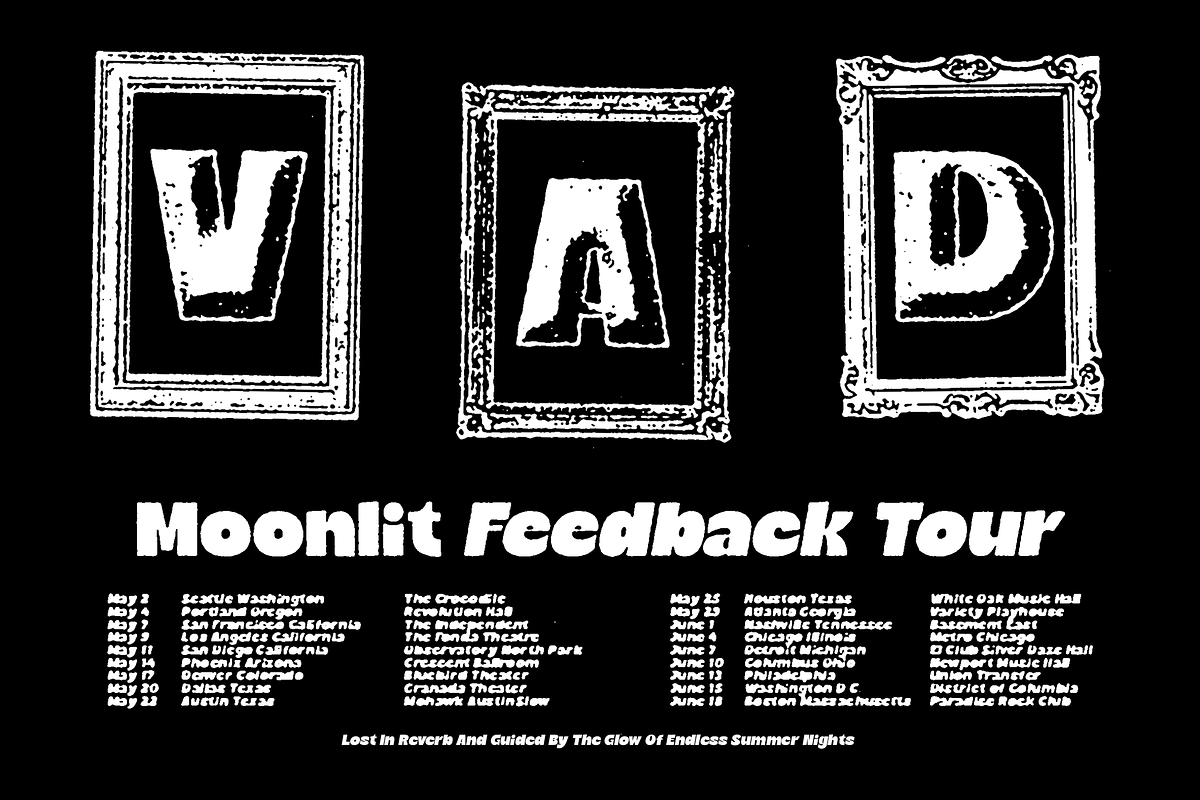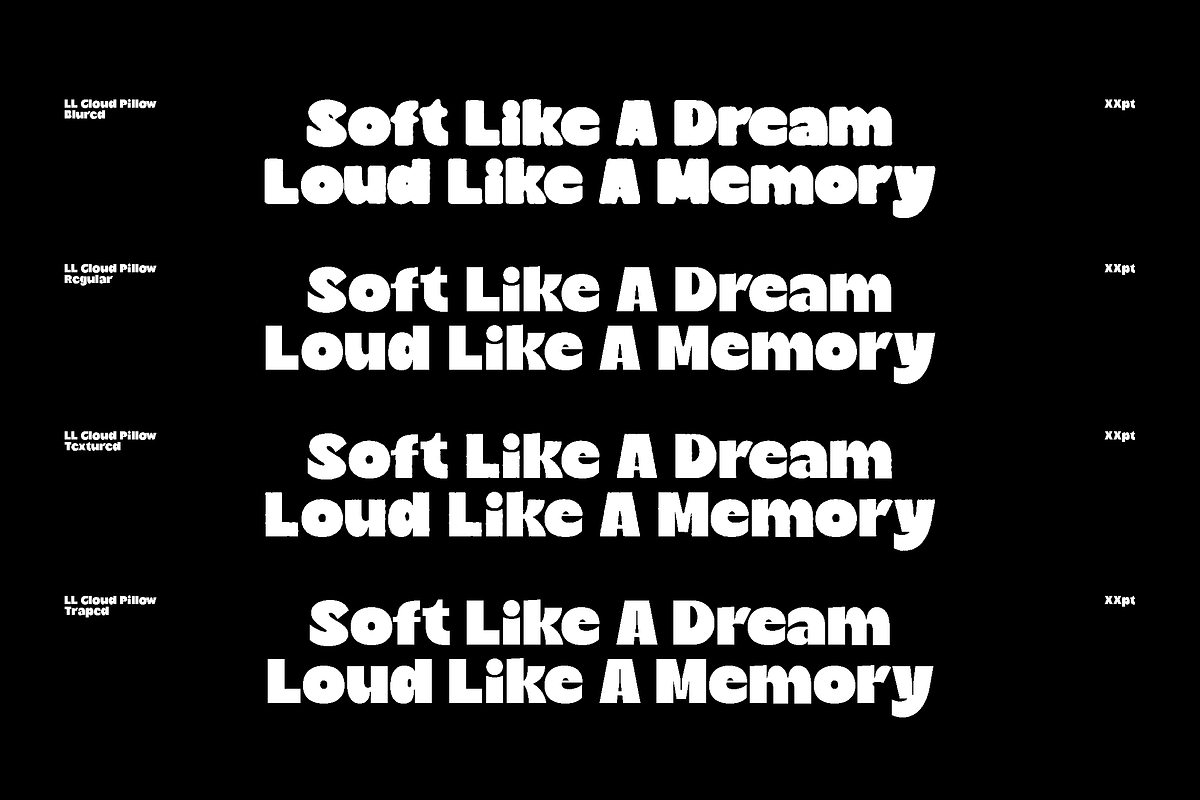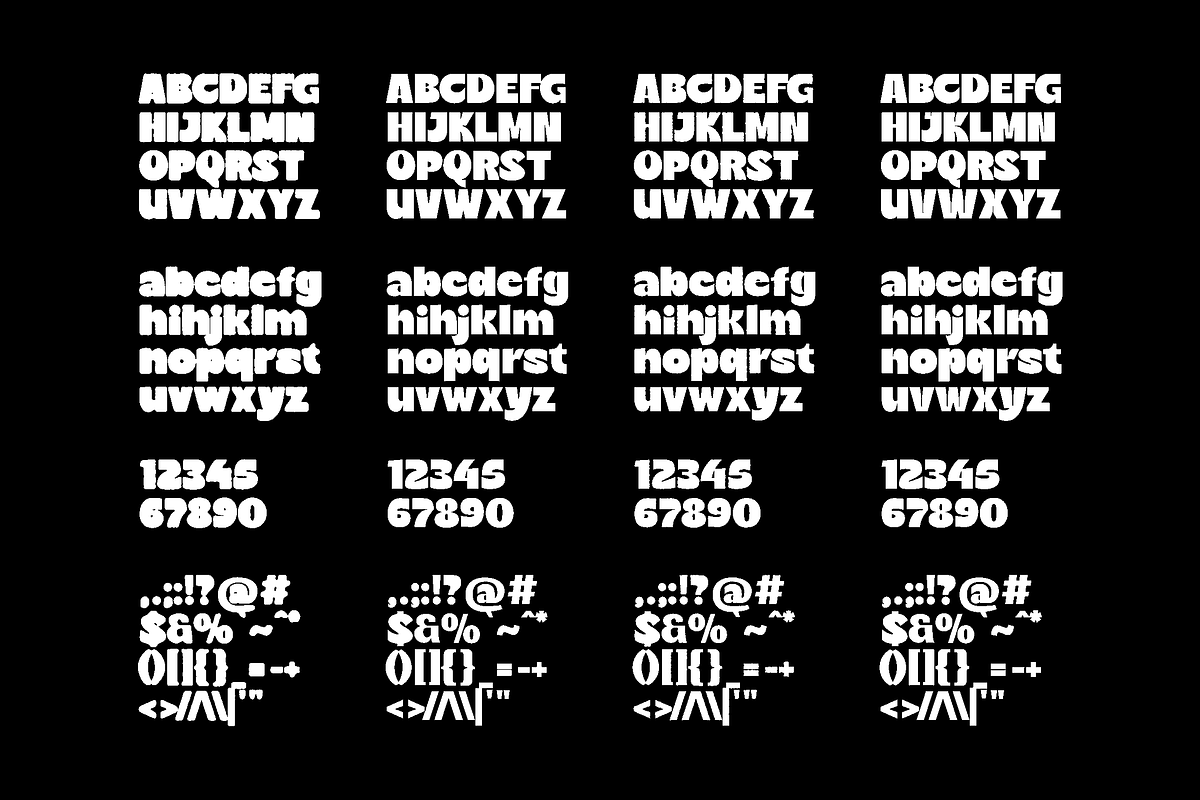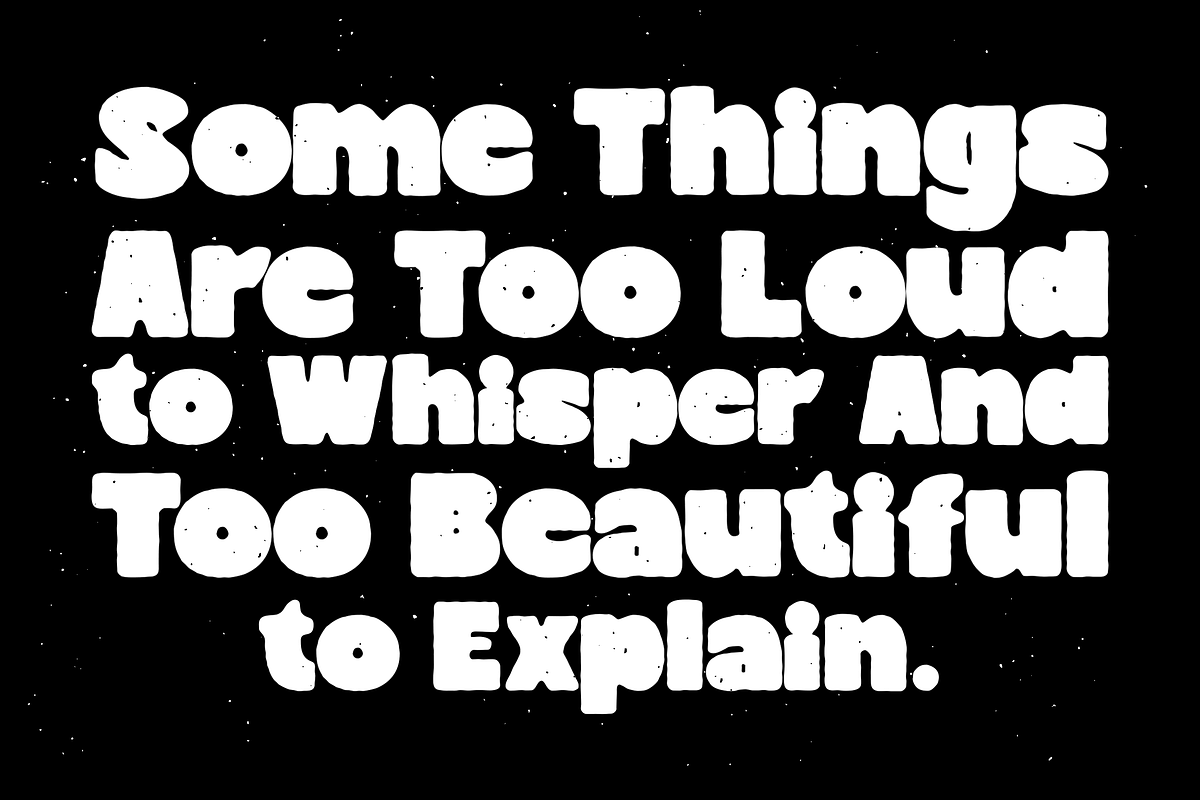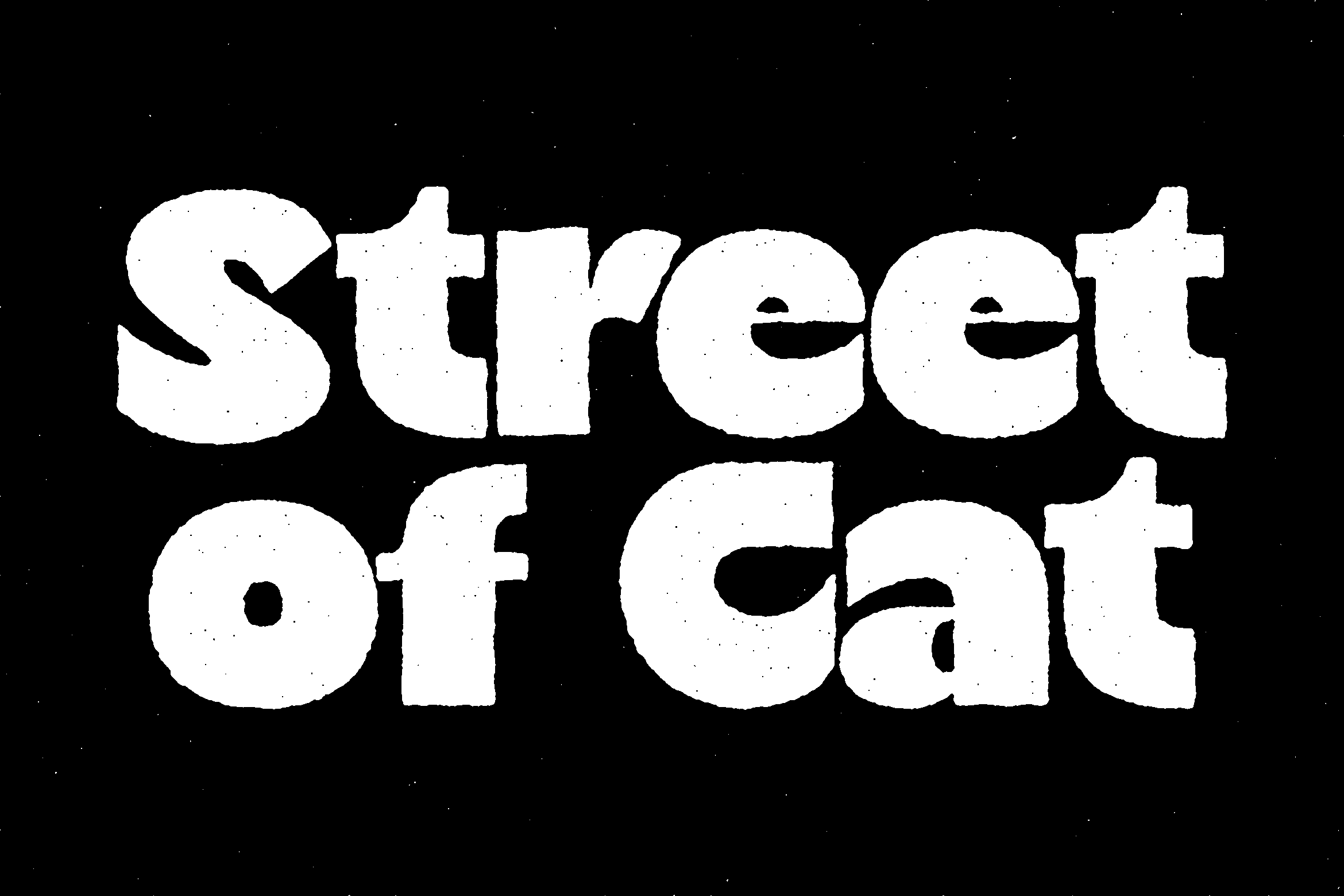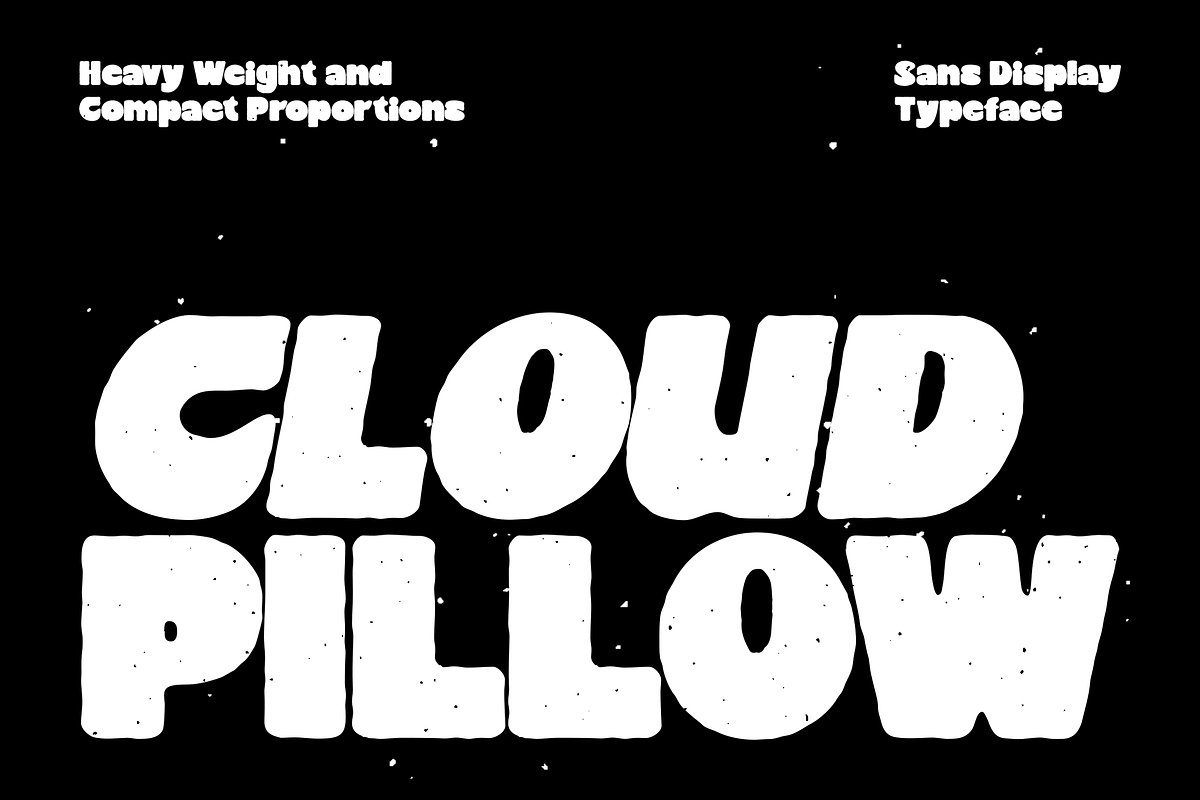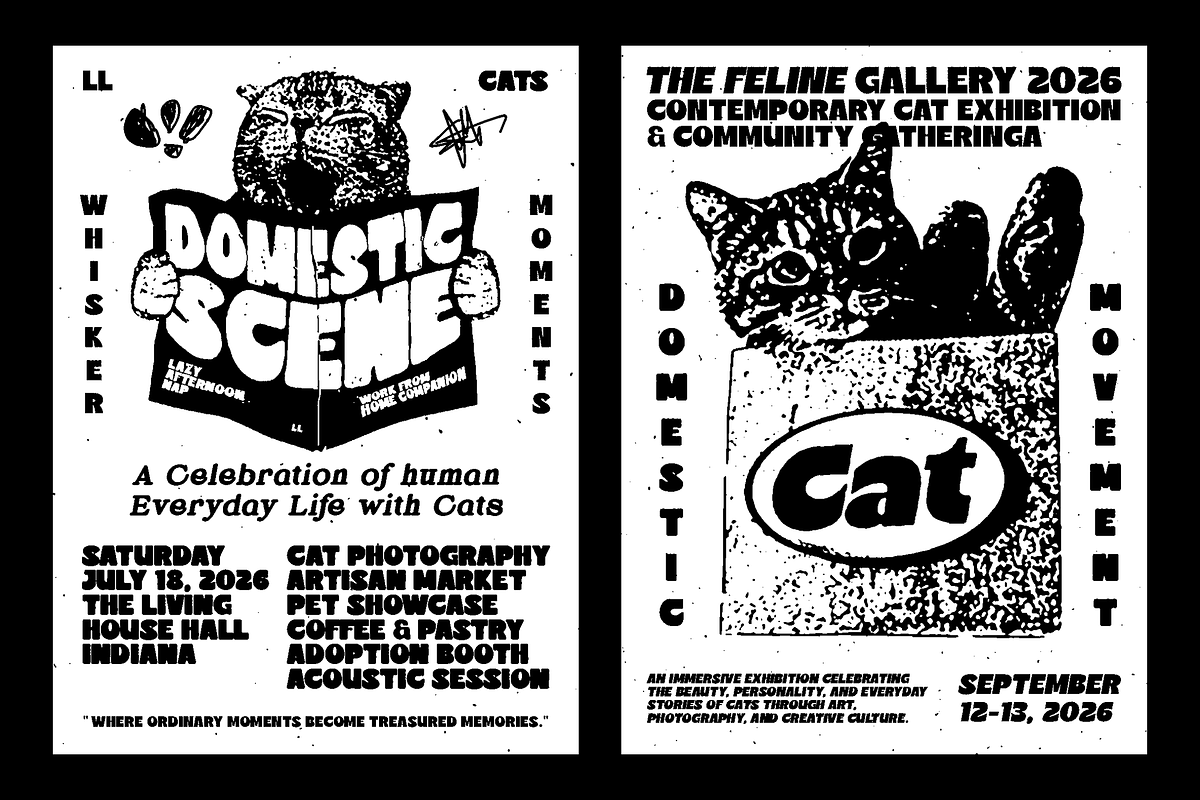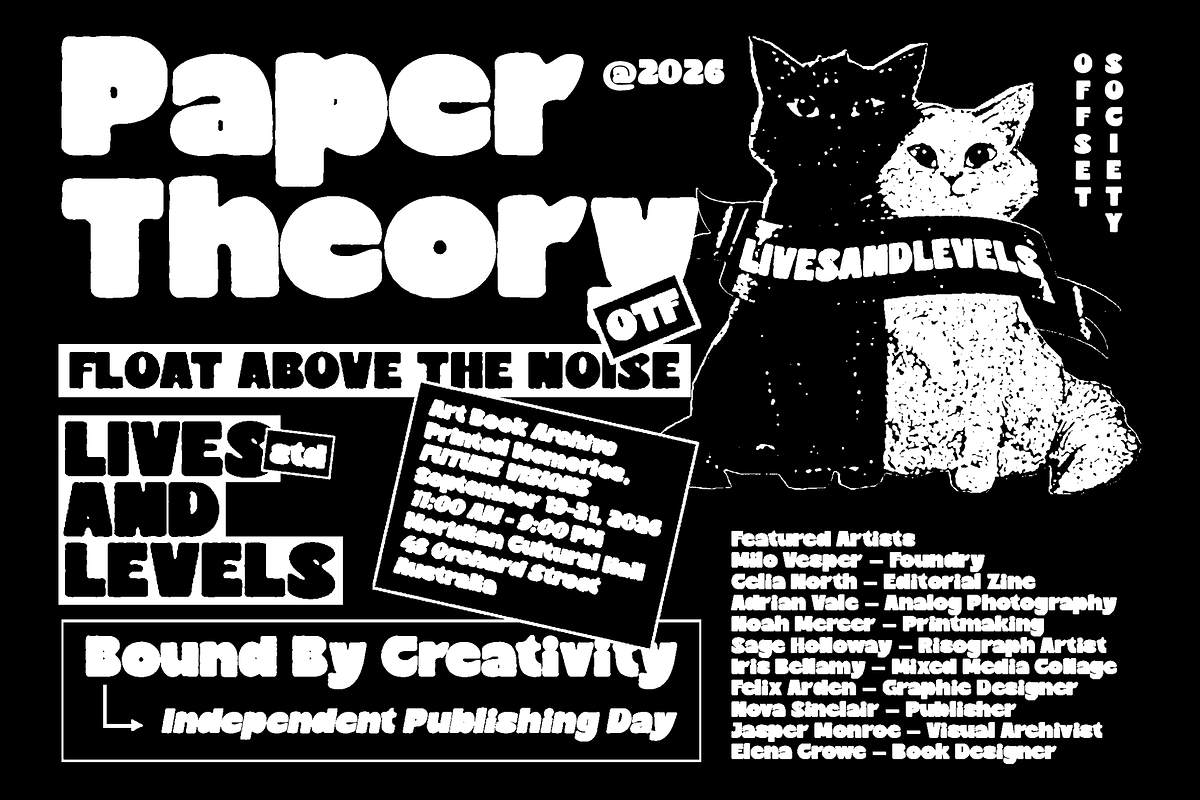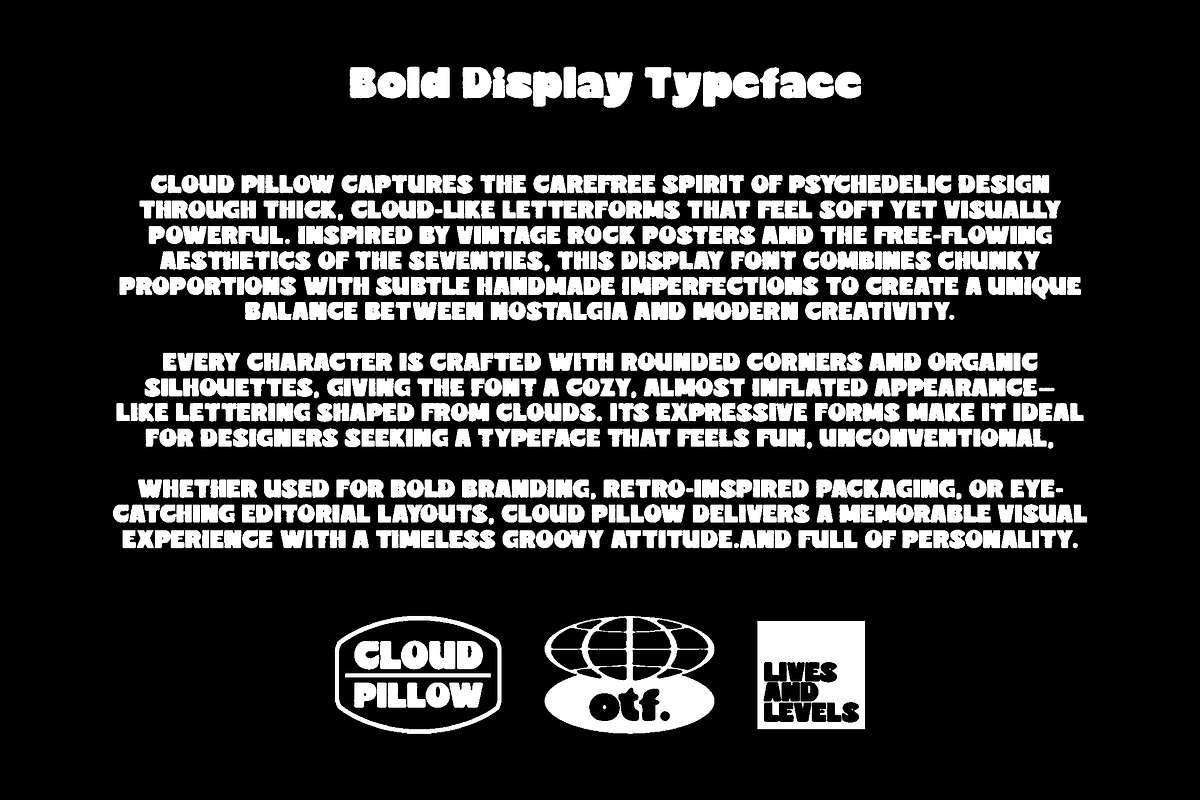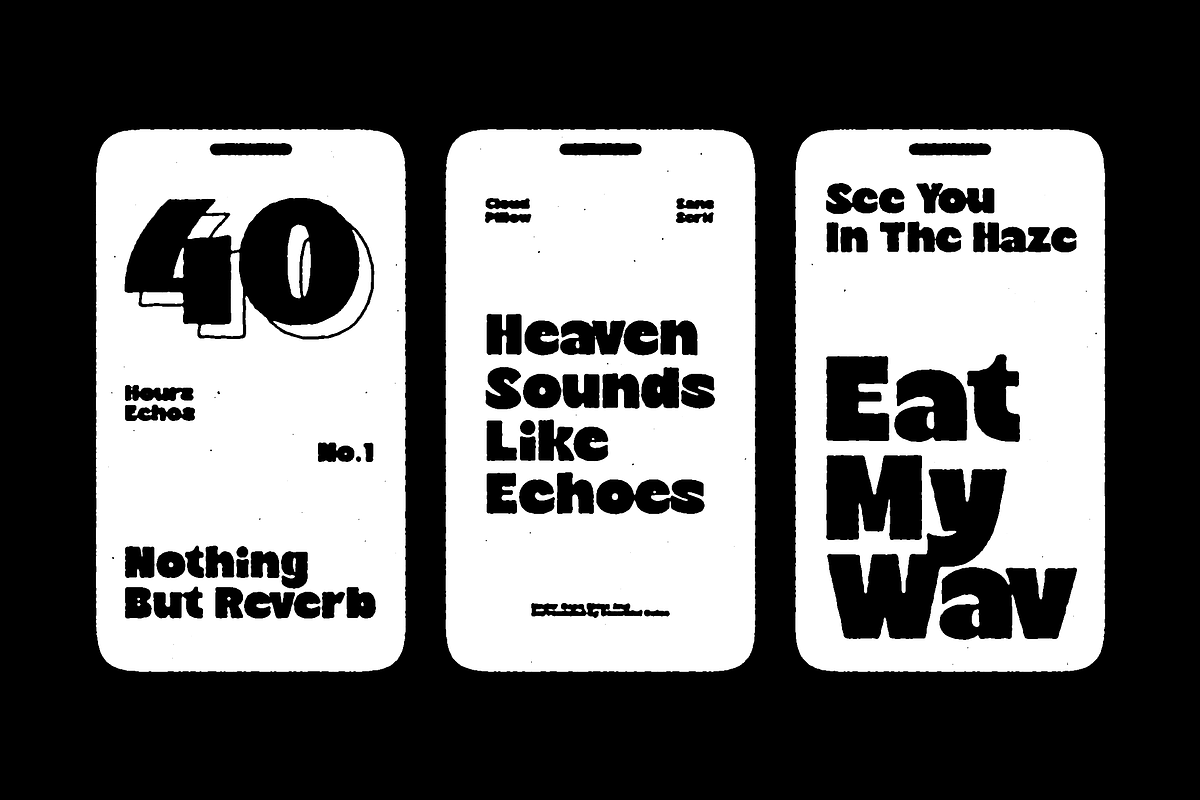
LL Cloud Pillow Bold Display Font
Cloud Pillow is a chunky, feel-good display typeface with oversized curves and a soft, hand-shaped attitude. Inspired by vintage psychedelia and playful retro signage, every letter carries a slightly imperfect silhouette that gives the font its warm and rebellious personality. Bold, fluffy, and impossible to ignore, Cloud Pillow brings nostalgic energy to posters, album covers, packaging, and expressive branding.